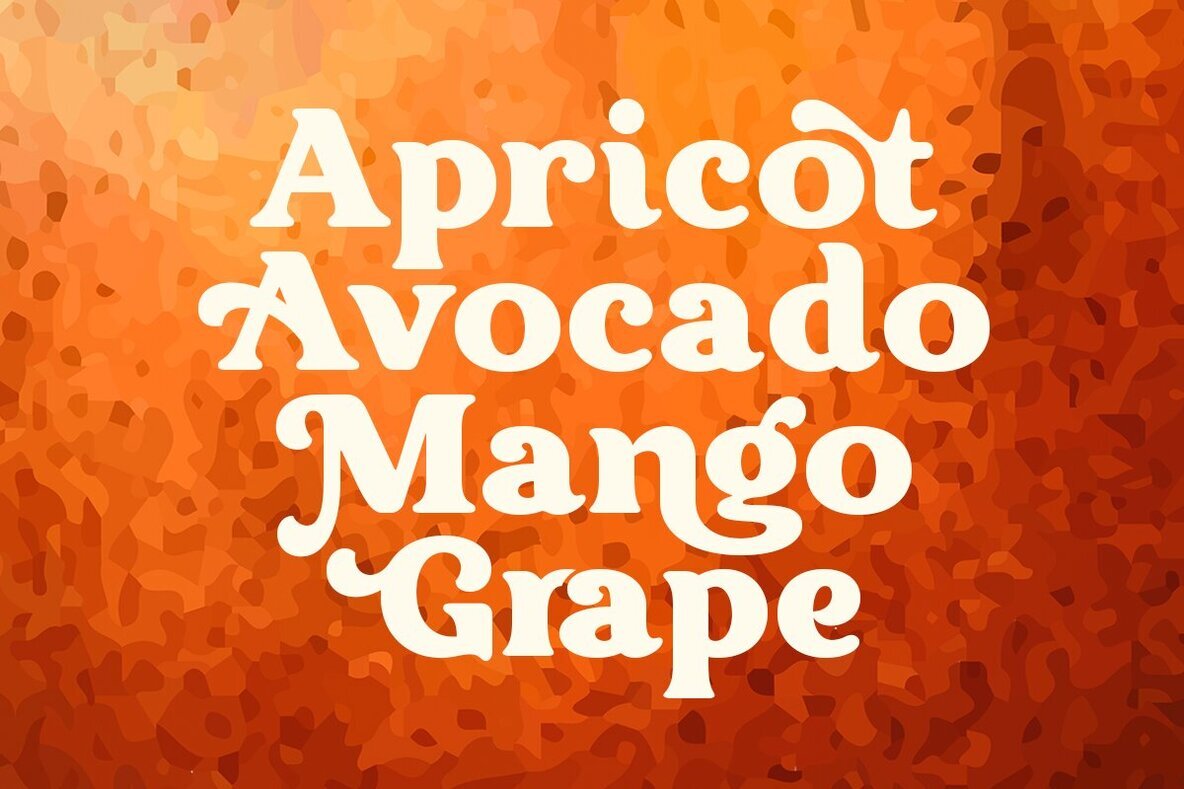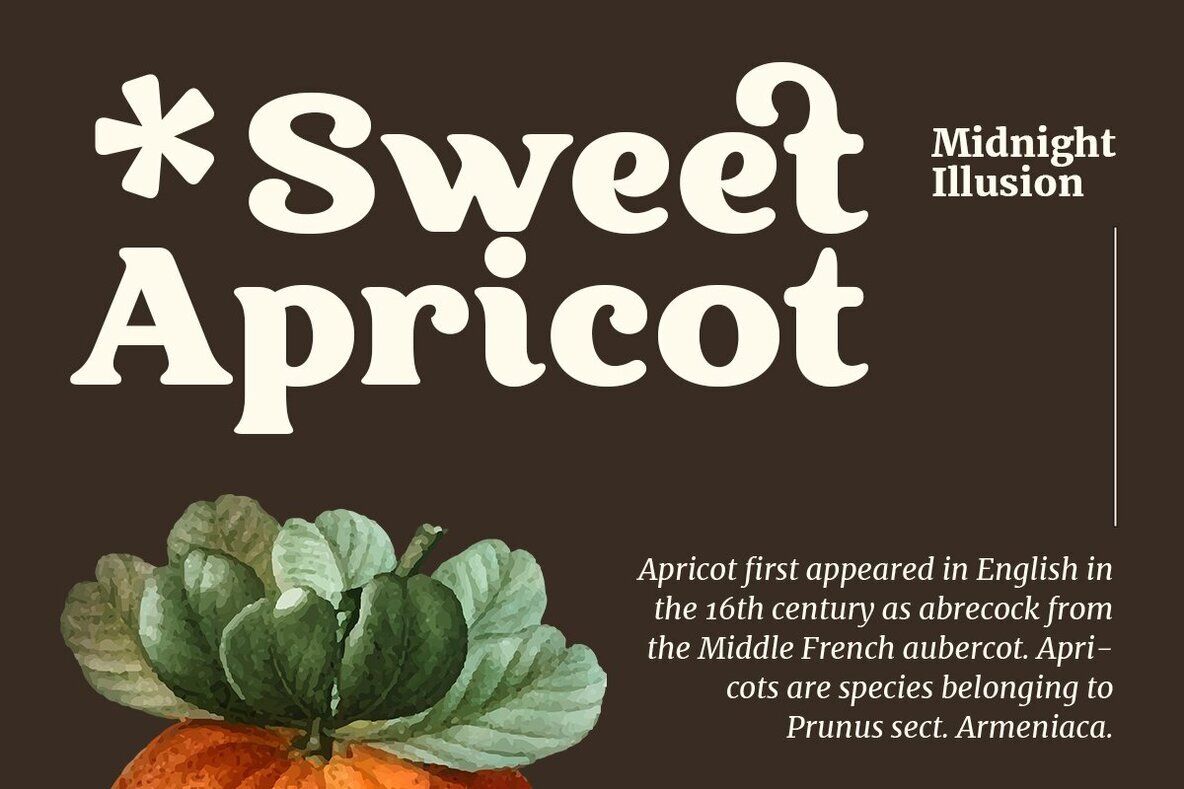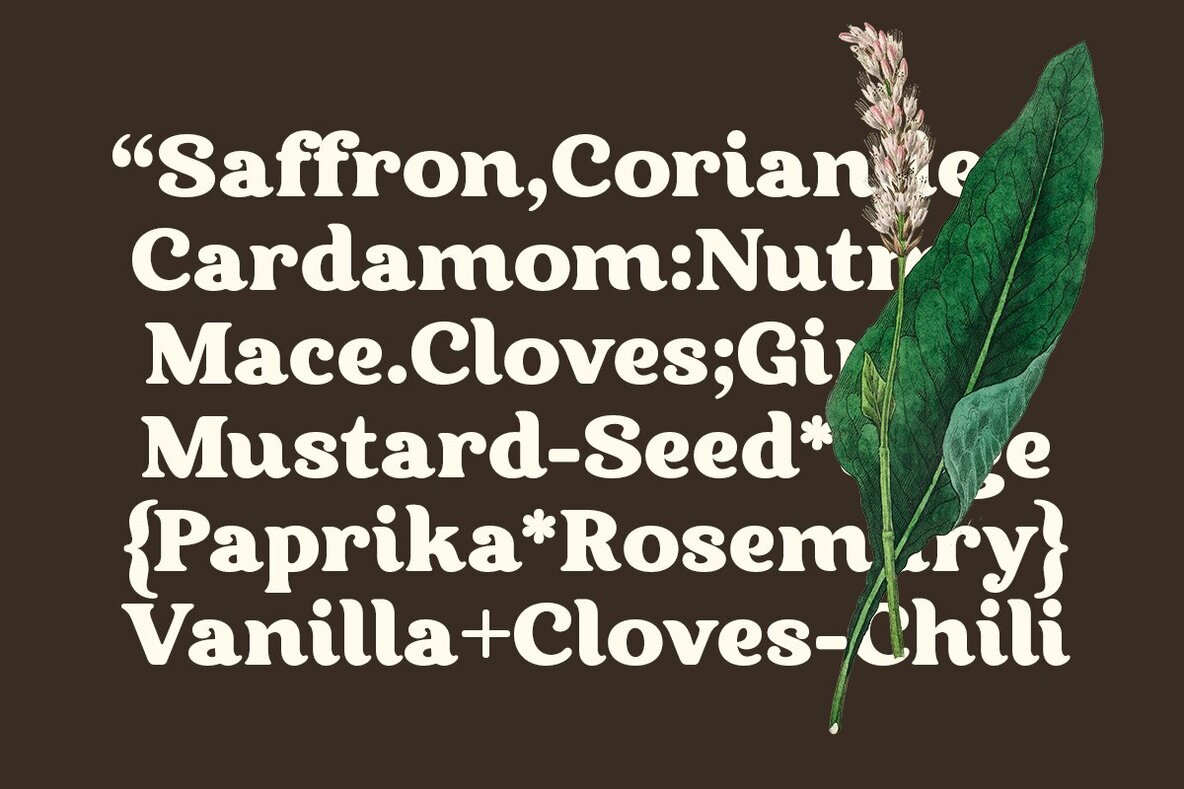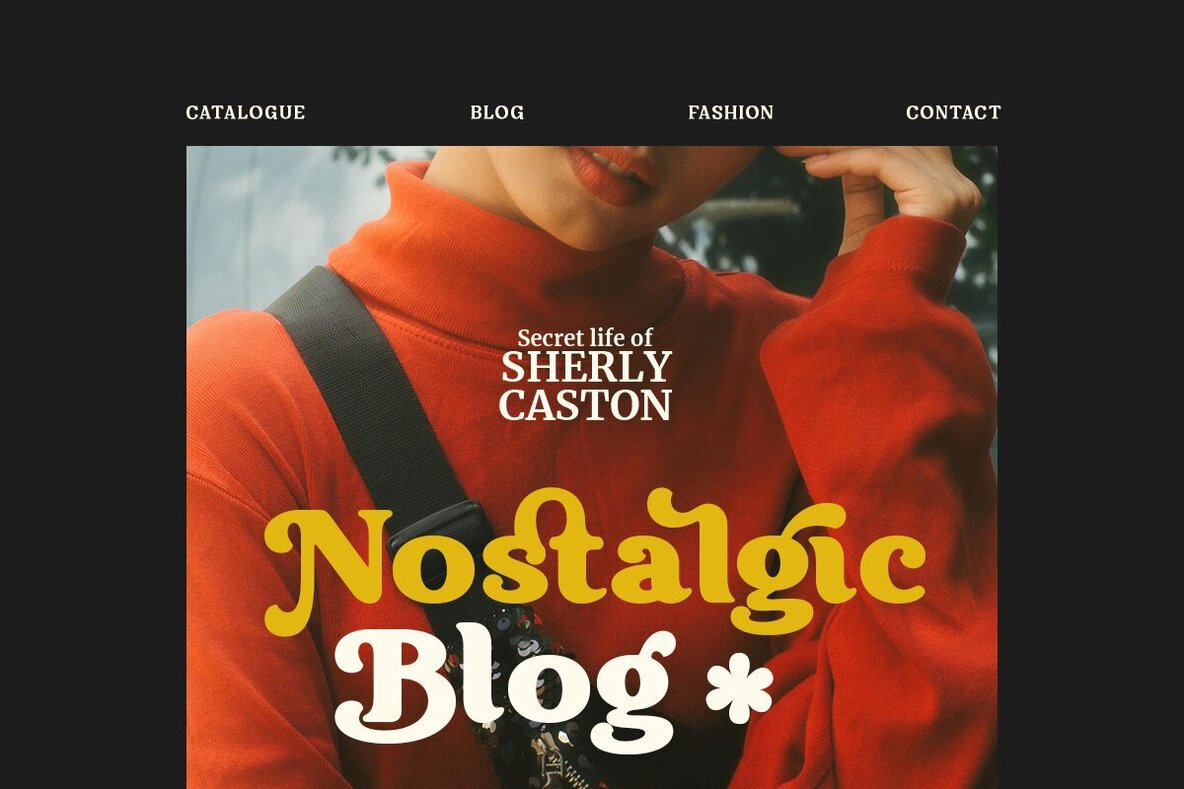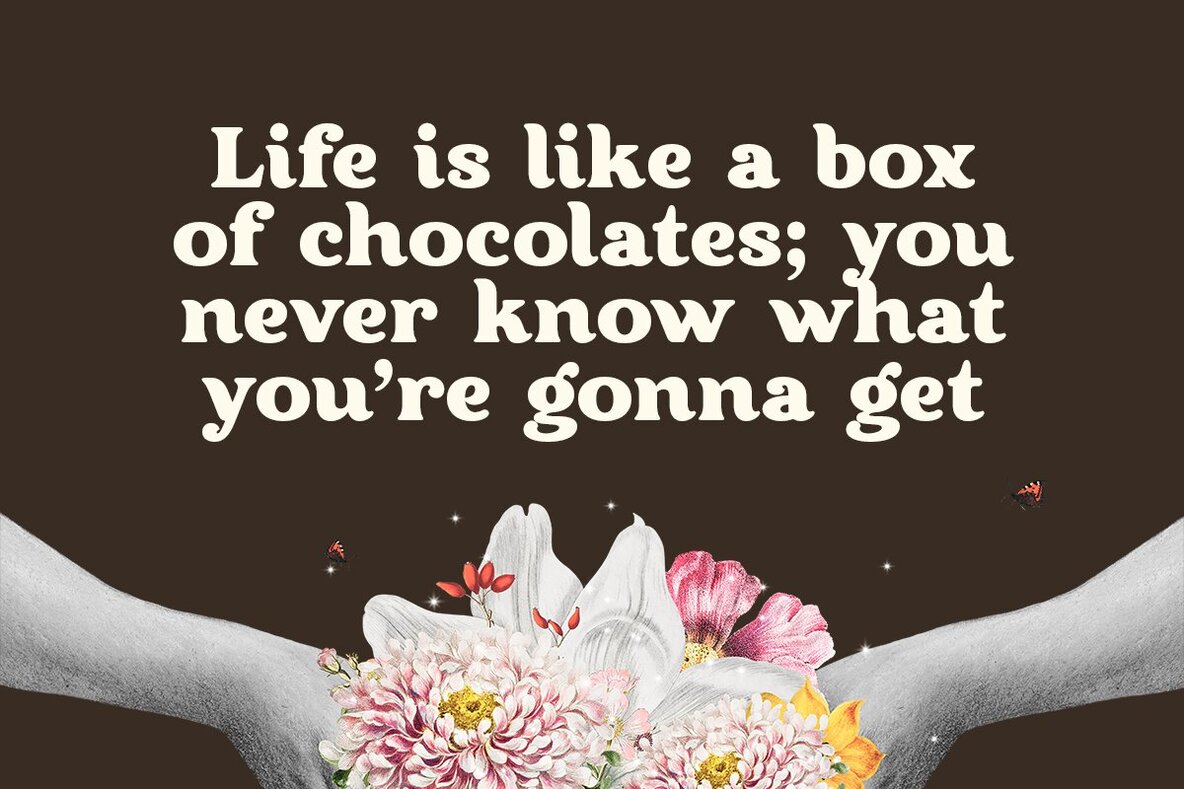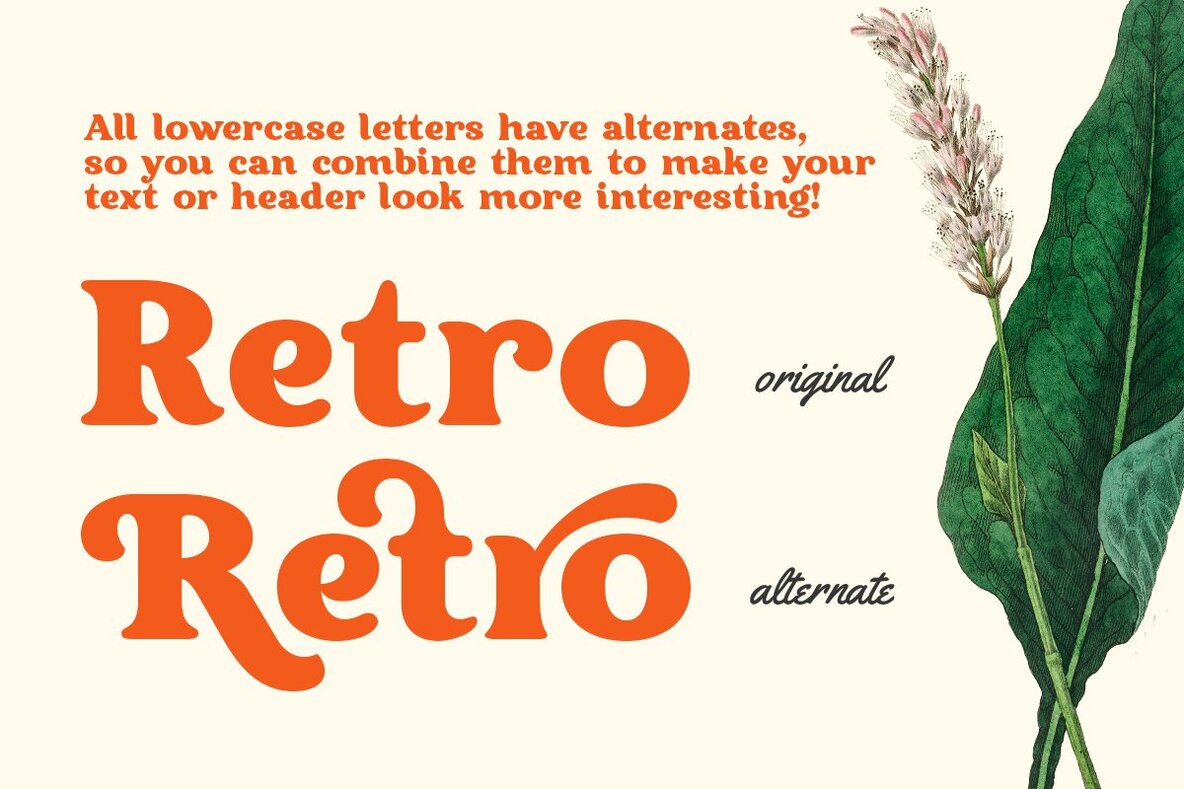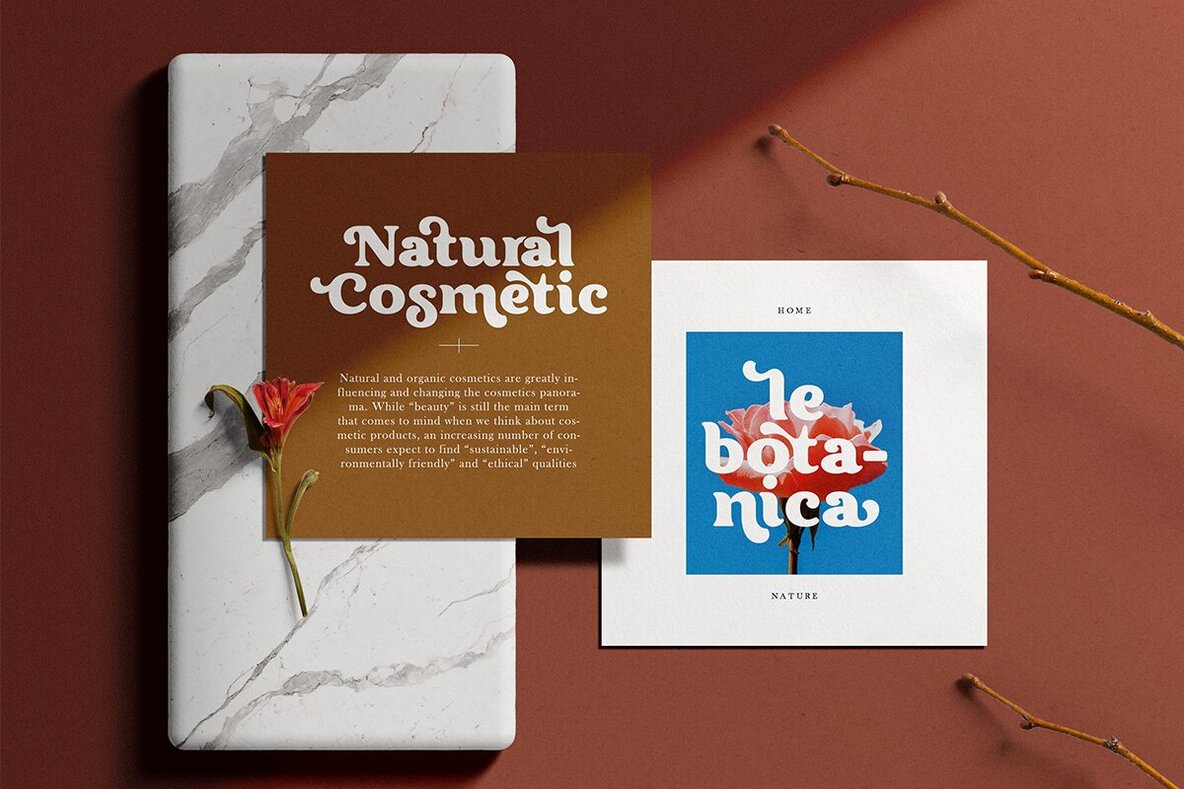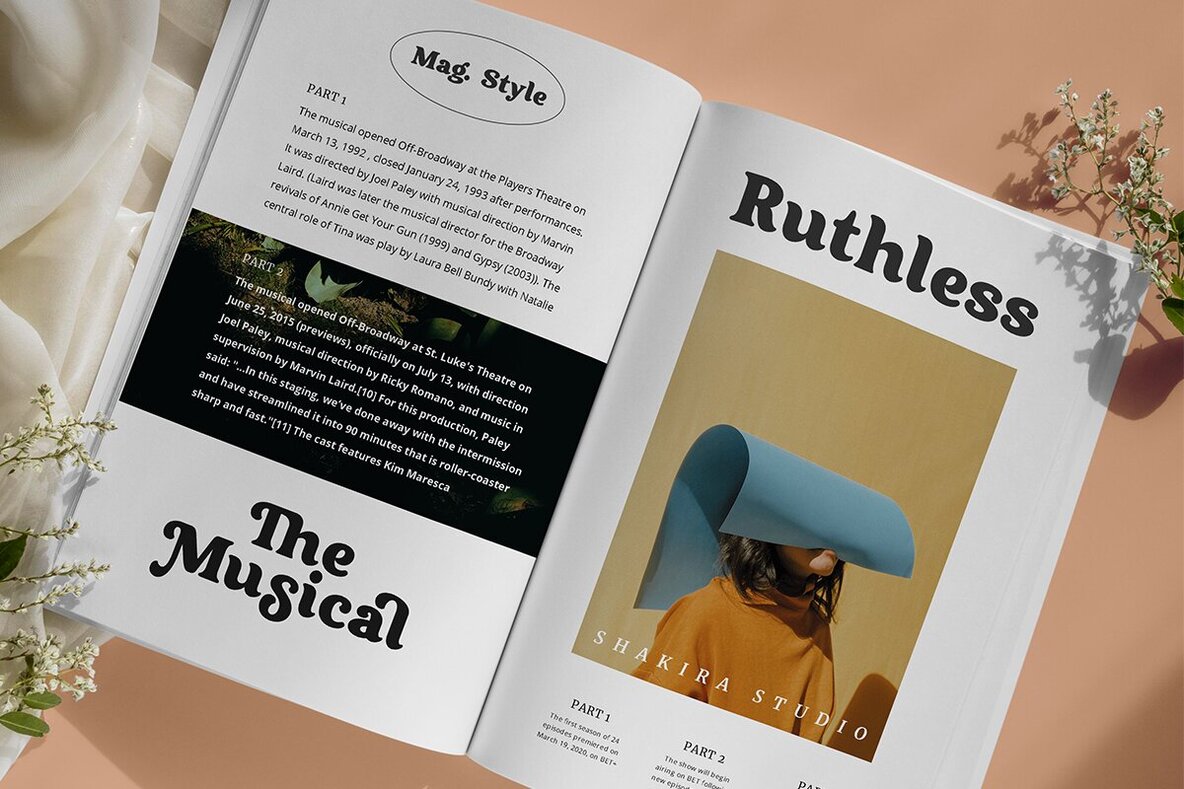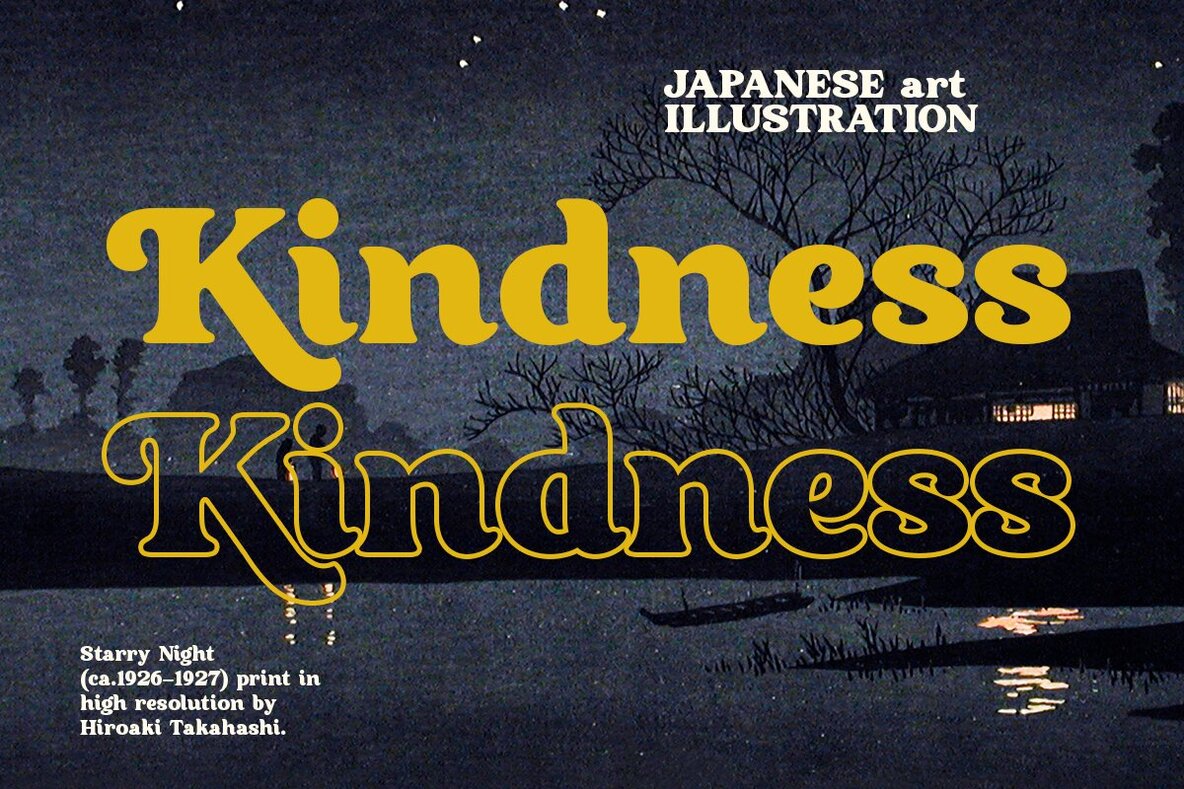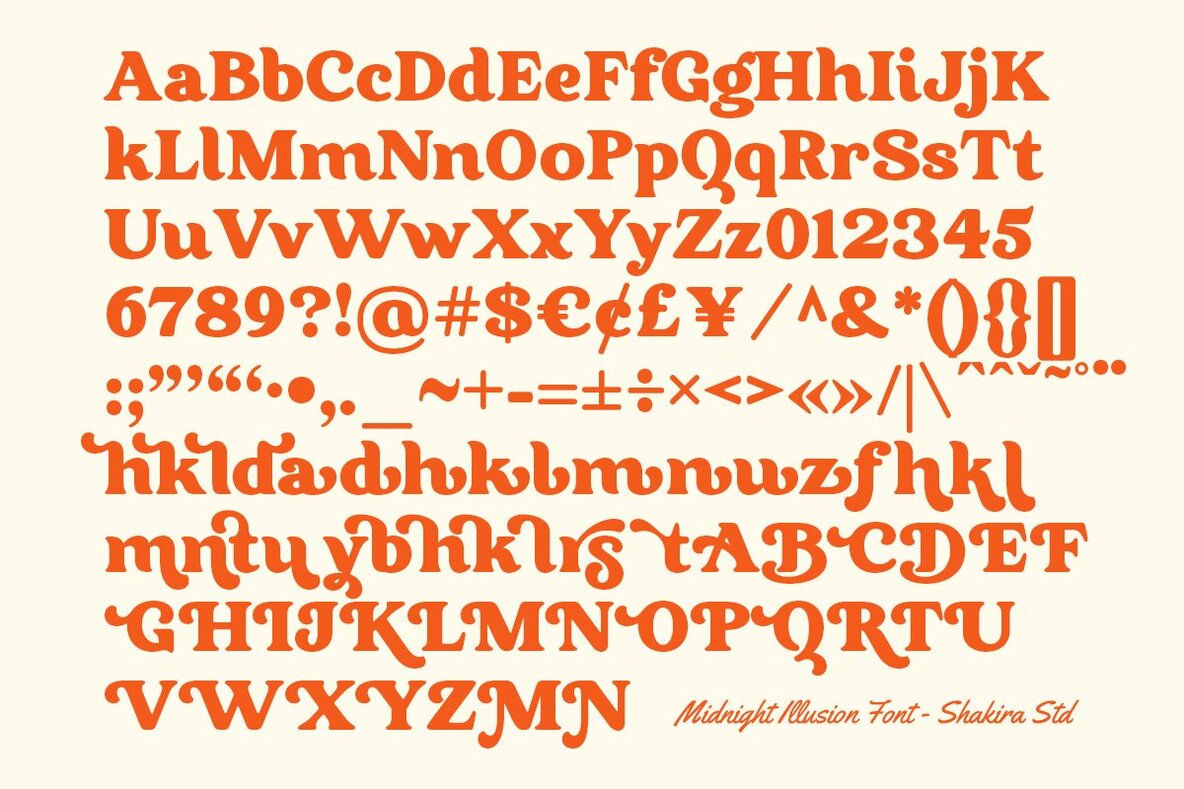
Midnight Illusion Font
Introducing Midnight Illusion - Bold Retro Serif Font with Subtle Curves at Every Corner! Midnight Illusion isn't just your ordinary serif font; it's a bold statement of retro elegance with a modern twist. With its bold characters and smooth curves at every corner, Midnight Illusion perfectly embodies the essence of #RetroFonts and #TypographyTrends. Crafted for designers seeking to make a lasting impression, Midnight Illusion offers a unique blend of boldness and sophistication. Its smooth curves add a touch of finesse to each character, making it ideal for logos, headlines, and branding materials that demand attention. Elevate your designs with Midnight Illusion and join the trend towards bold retro serif fonts. Make a statement with your typography and captivate your audience with Midnight Illusion's timeless charm and modern appeal! #MidnightIllusion #BoldSerif #DesignElegance